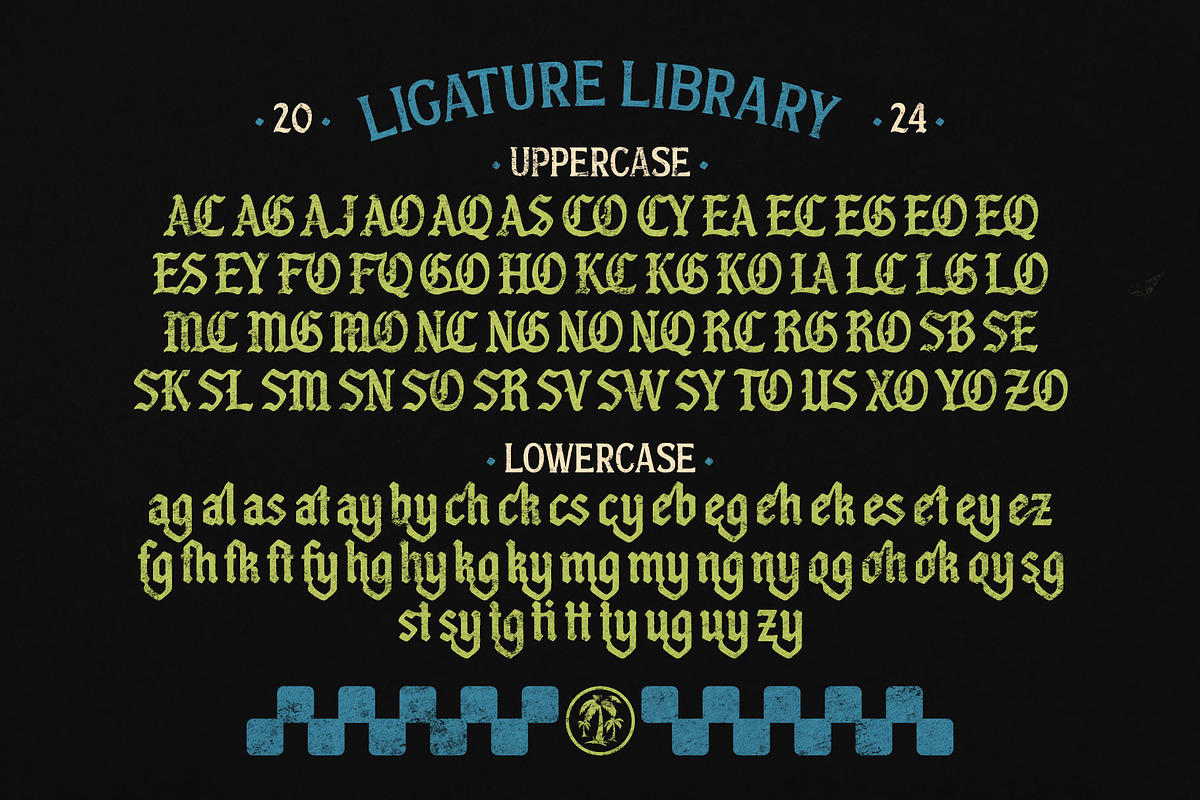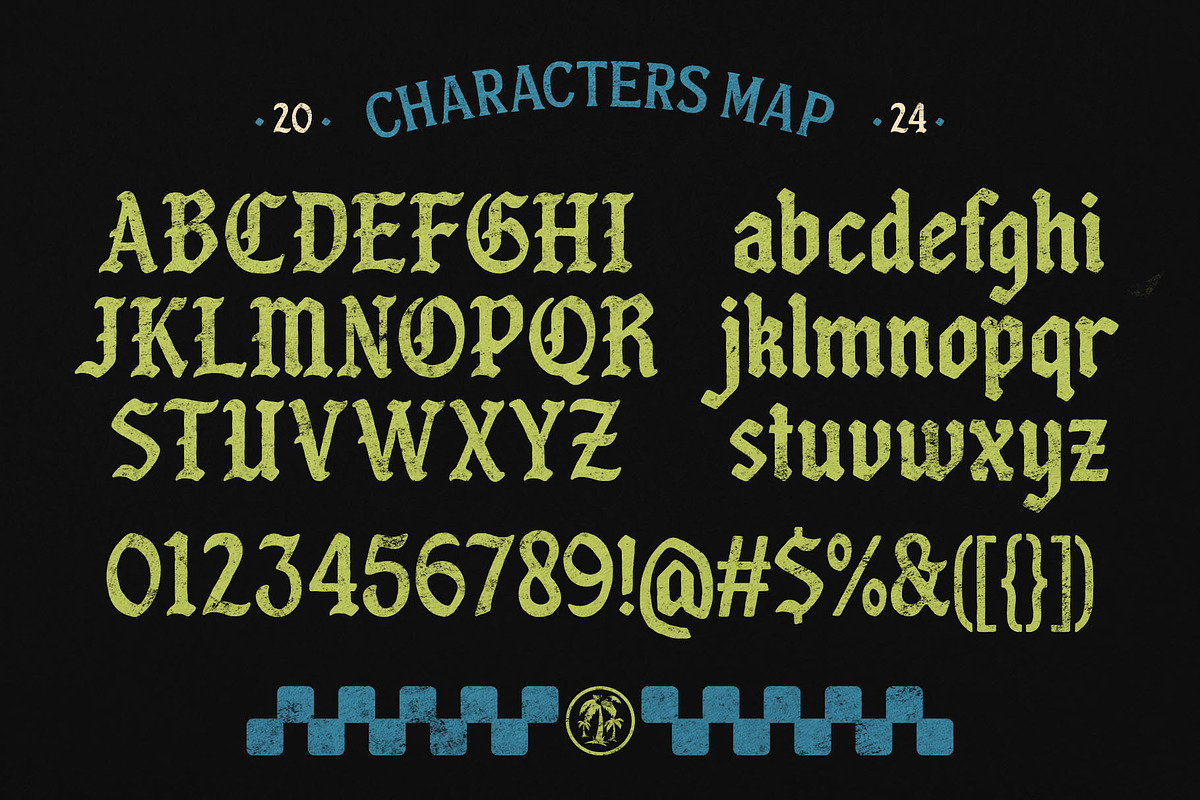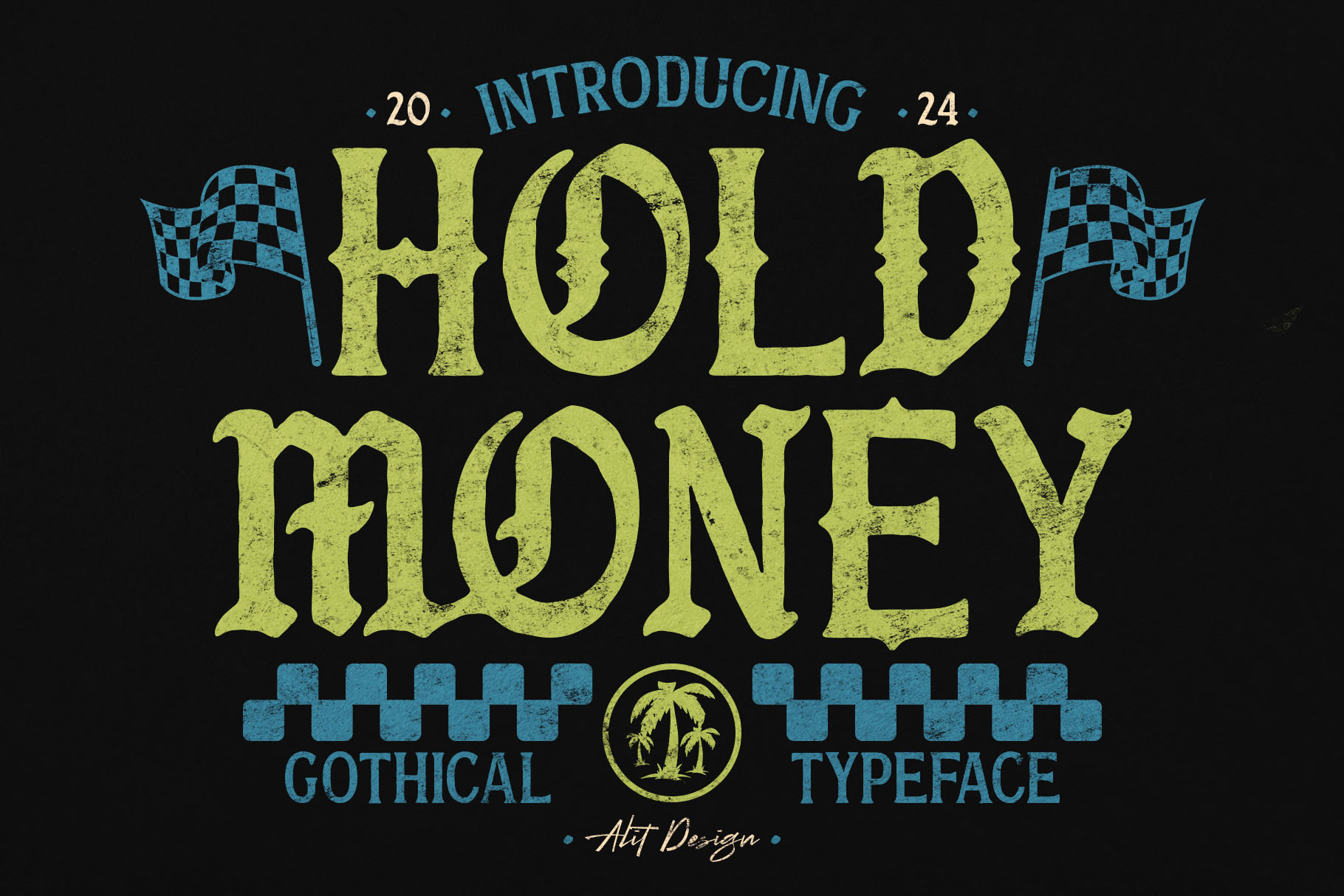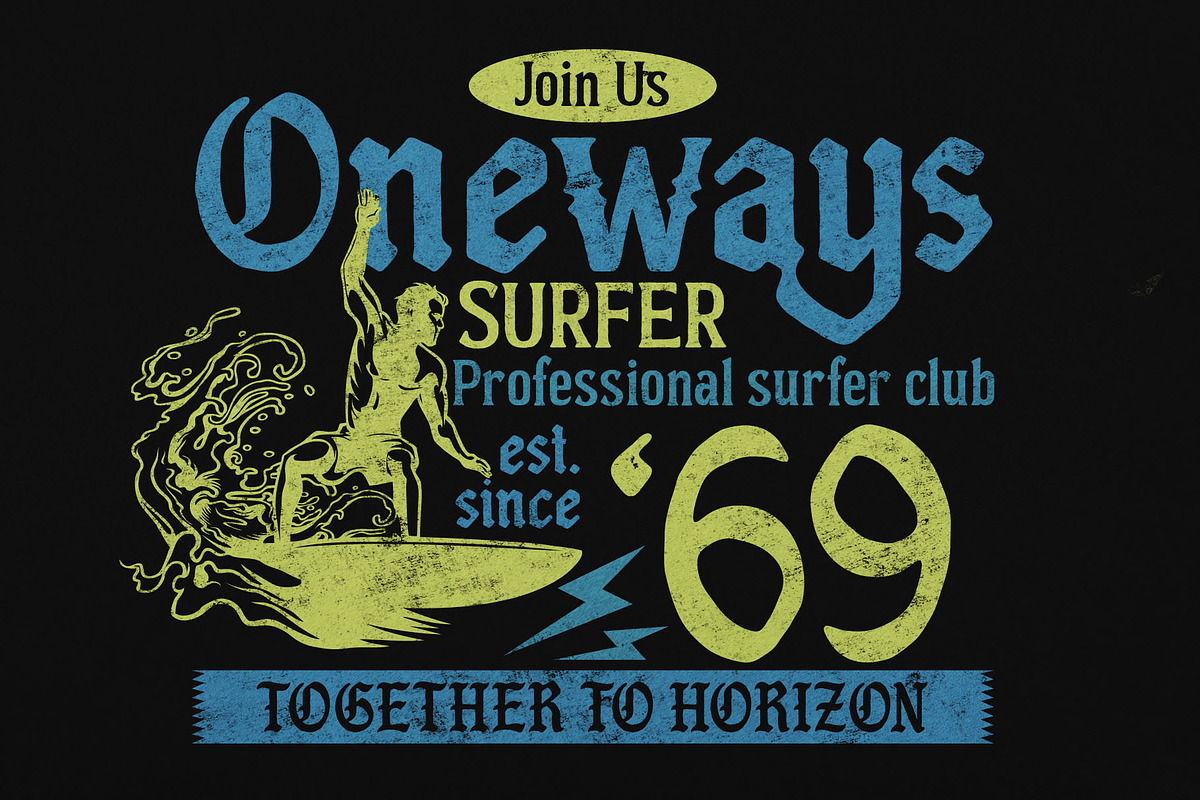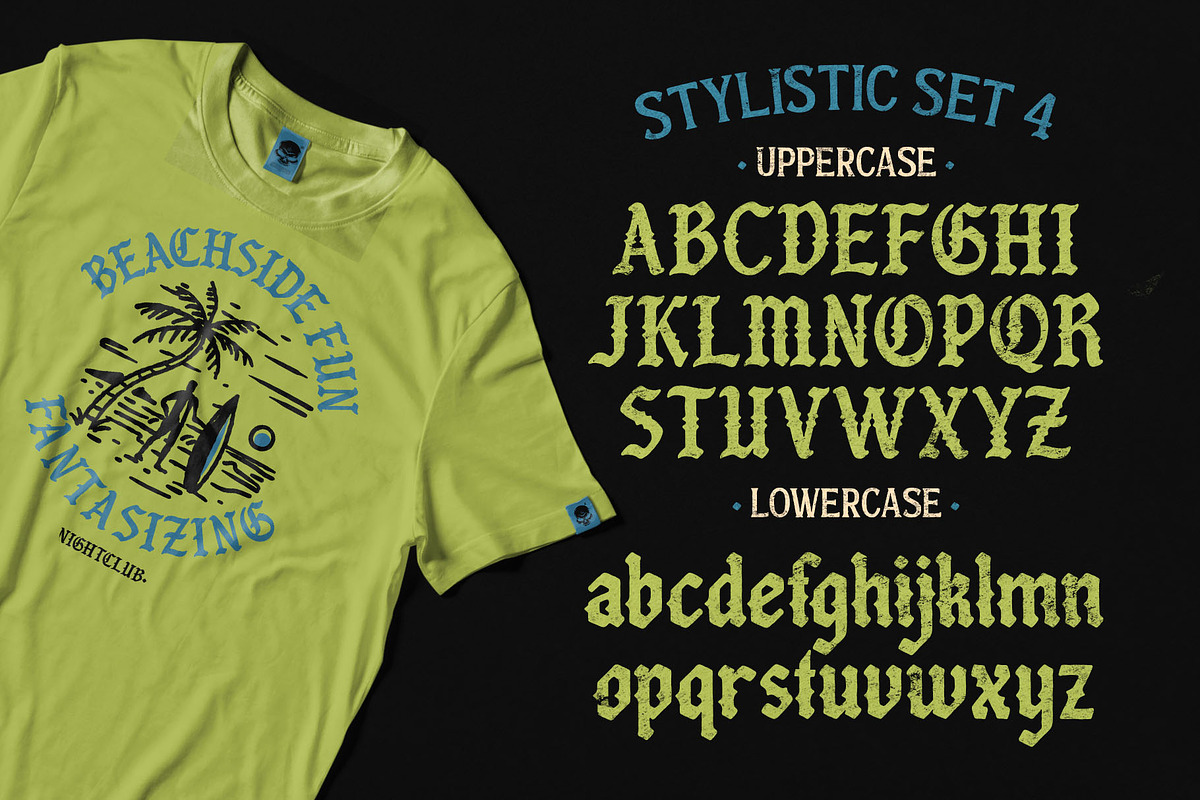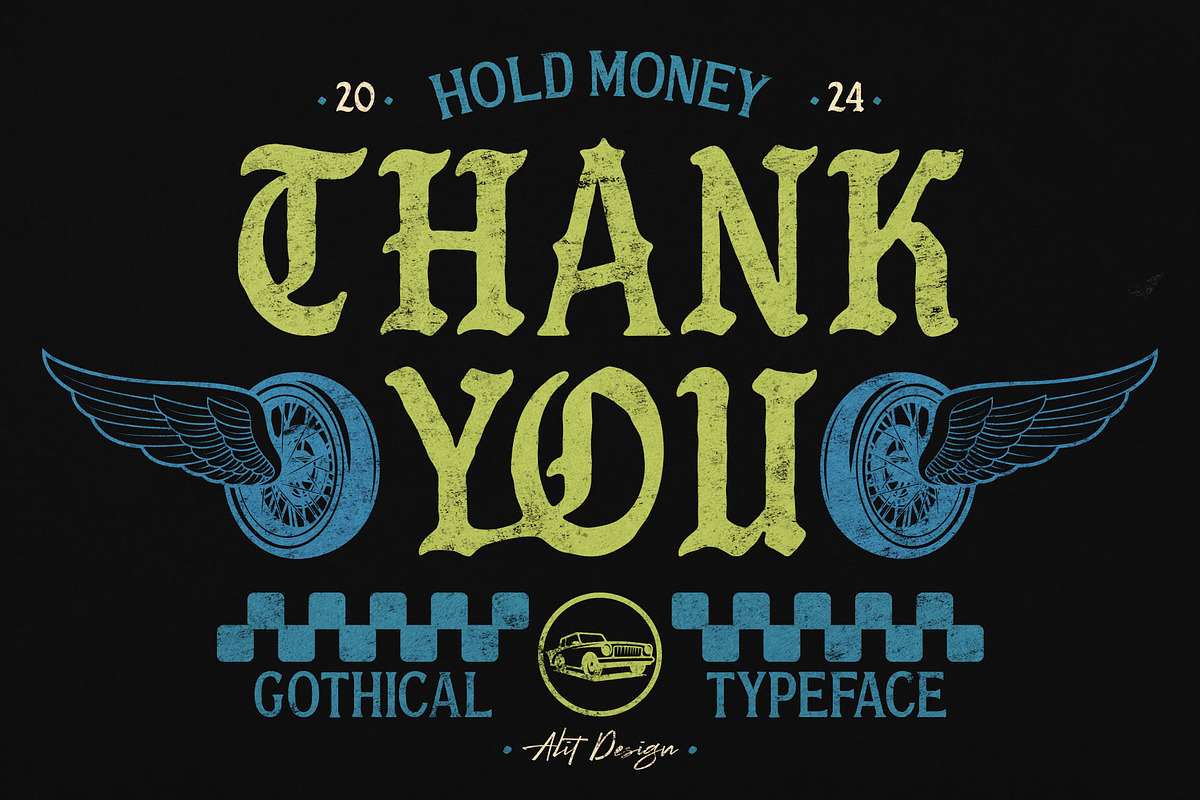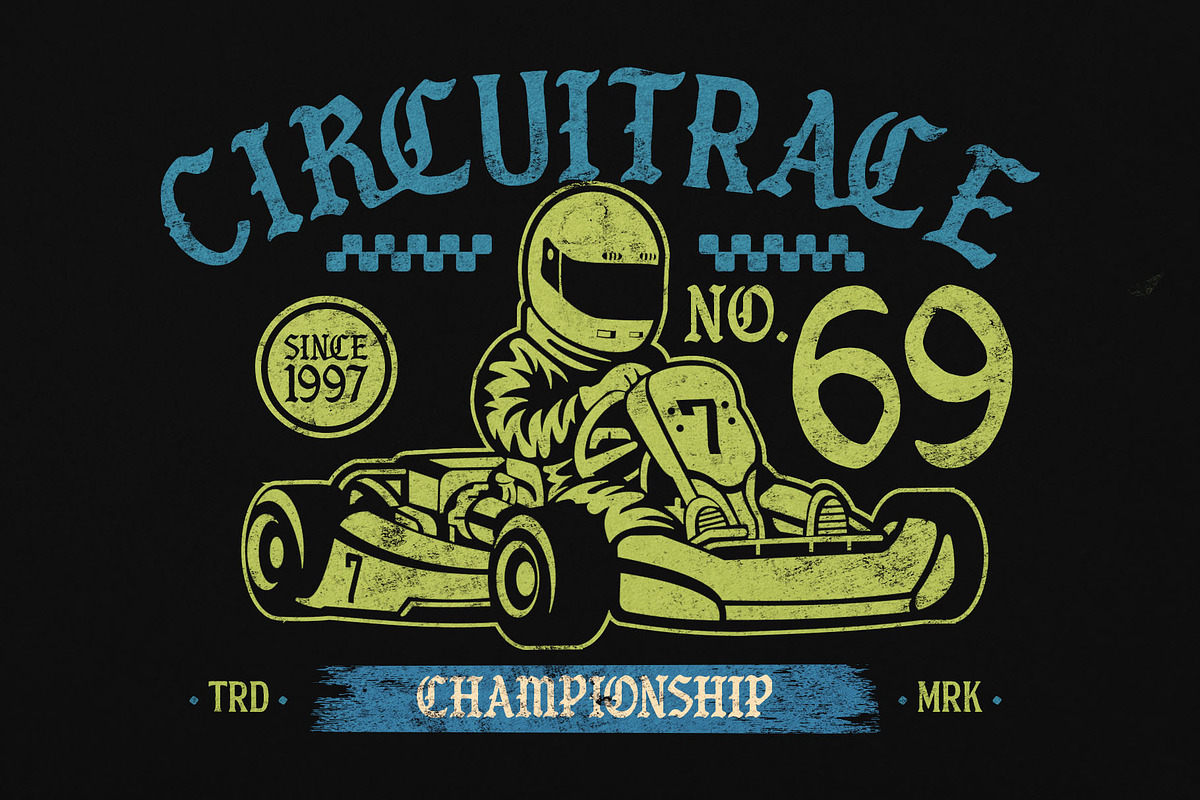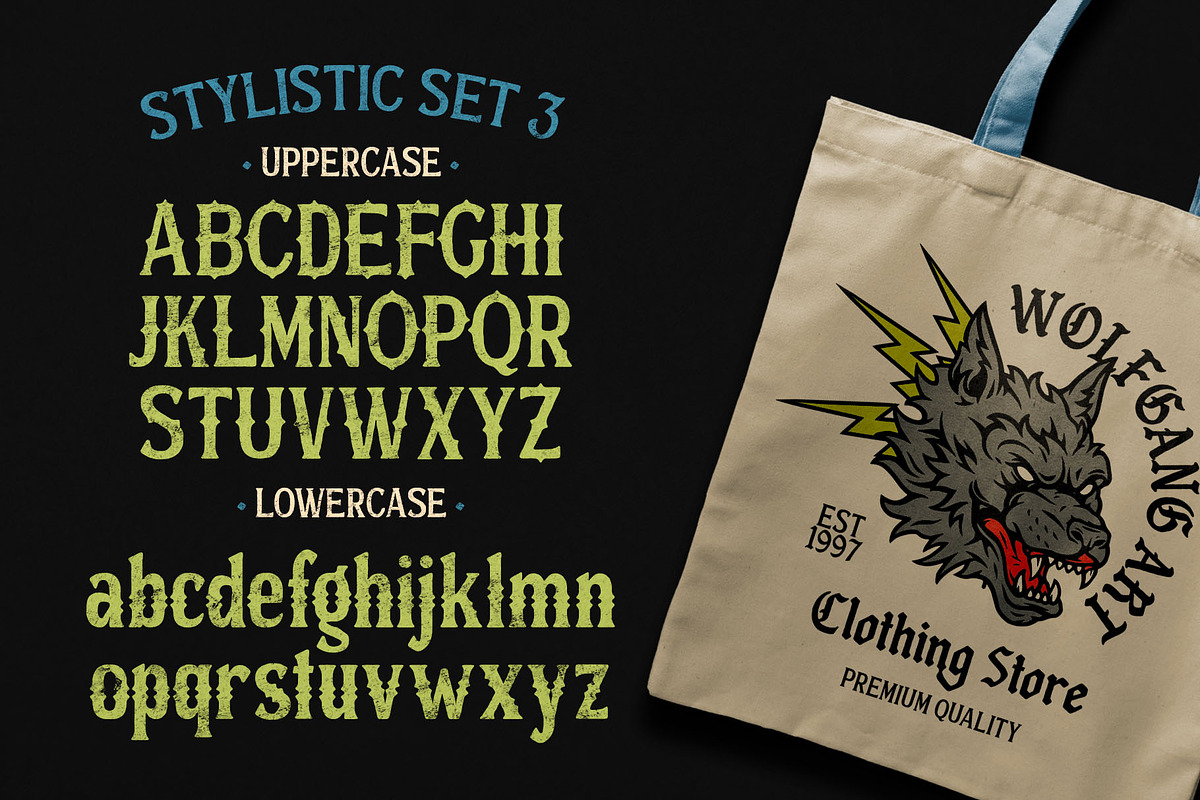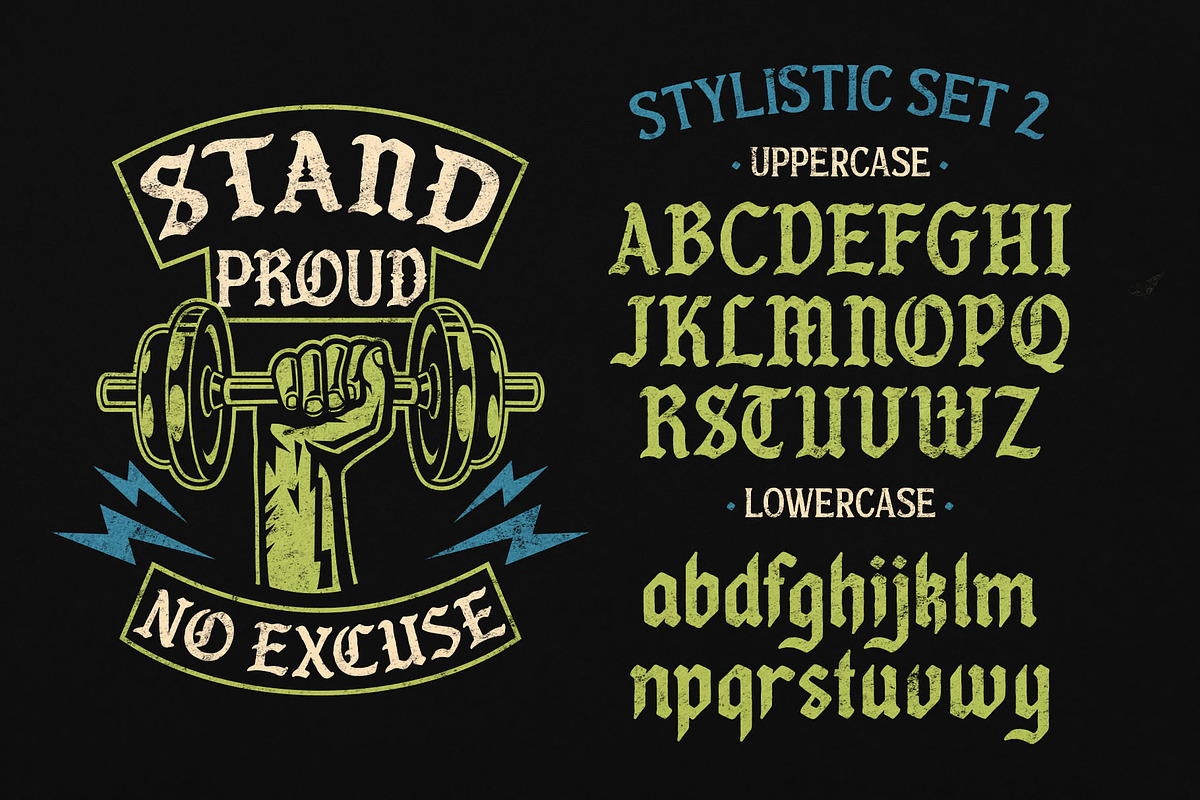
Hold Money Blackletter Typeface
Hold Money Blackletter Typeface is a bold, rough vintage-inspired blackletter font designed to make a statement. Drawing on the classic elegance of Gothic typefaces with a rugged edge, this font blends traditional calligraphy with a distressed, worn look that exudes authenticity and grit. Perfect for branding, posters, packaging, and apparel, Hold Money adds a rebellious, old-world charm to any project.
Its sharp, intricate strokes and bold presence make it ideal for designs seeking a mix of vintage style and modern appeal. This typeface stands out in headlines, logos, or any design that demands attention and strength. Whether you're creating for print or digital, Hold Money Blackletter gives your work an unmistakable touch of rough sophistication.
Unleash your creativity with this timeless and edgy blackletter font!